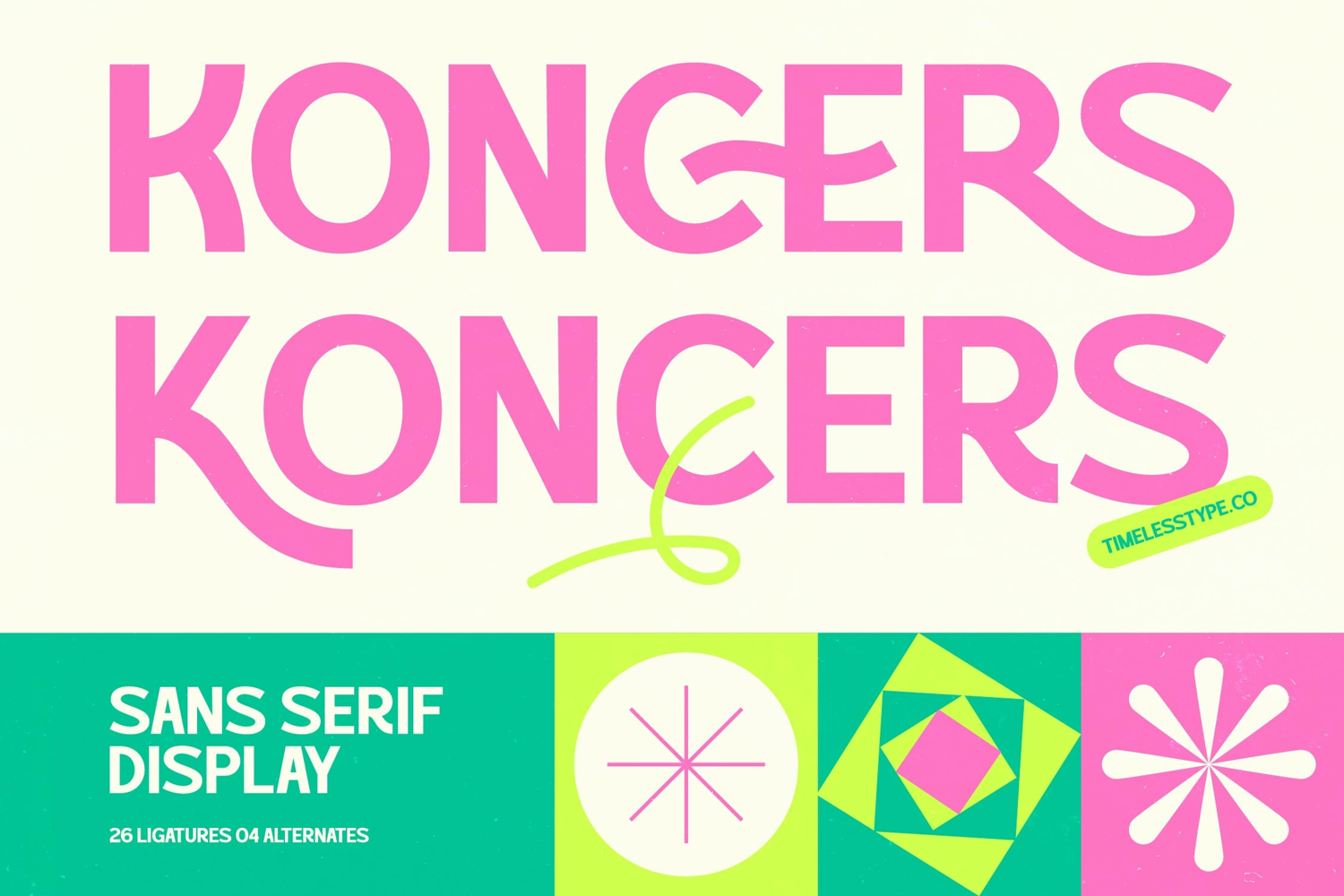
Koncers - Sans Serif Display
Elevate your visual identity with the striking presence of Koncers - Sans Serif Display, a masterpiece of modern typography designed to command attention. This bold display font blends geometric precision with retro-inspired flair, offering a unique aesthetic that feels both nostalgic and forward-thinking. Its clean lines and distinctive character shapes ensure that your messaging remains impactful and memorable across all digital and print mediums.
Unleash your creative potential using the dynamic ligatures and stylistic alternates that define the soul of Koncers - Sans Serif Display. With 26 custom ligatures and 4 unique alternates, this typeface allows designers to craft bespoke headlines and fluid typographic layouts that break away from the mundane. It provides a high-contrast visual rhythm, making it an essential tool for those looking to infuse their work with expressive personality and professional sophistication.